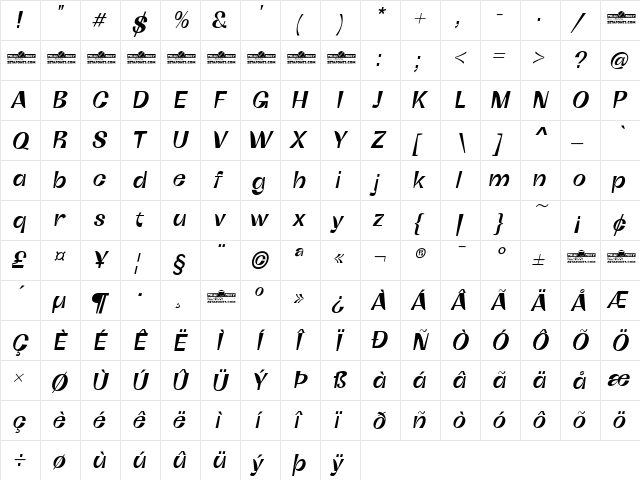
Boring Sans C Trial Medium Italic
| Foundry | Zetafonts |
| Designer | Cosimo Lorenzo Pancini |
Design Context for Boring Sans C Trial Typeface
Boring Sans C Trial takes a measured approach to typography — its balanced proportions and neutral character make it a reliable workhorse for both digital and print work. The dynamic lean of this cut emphasises speed and emphasis in any layout.